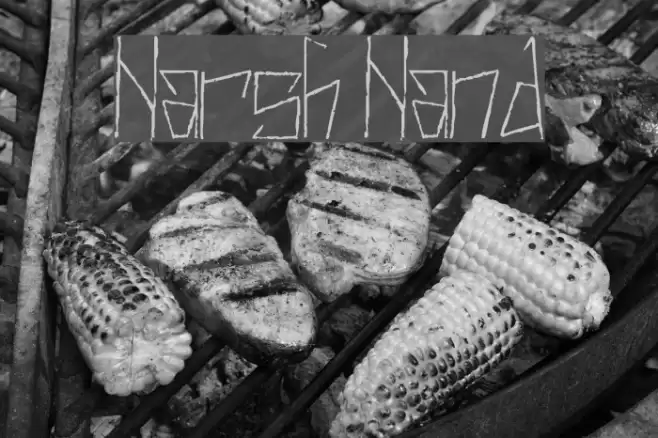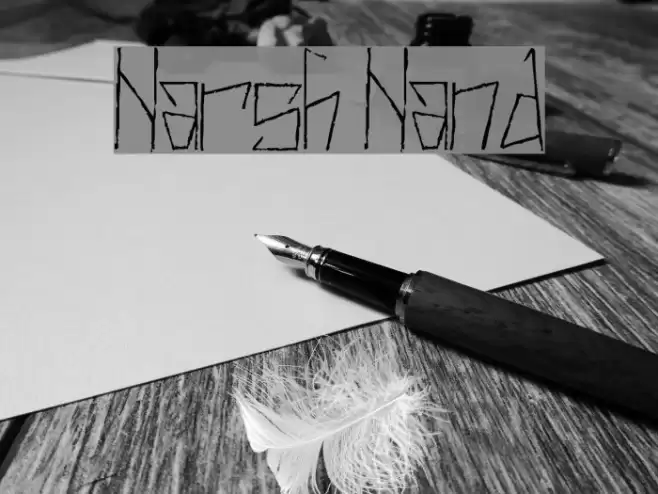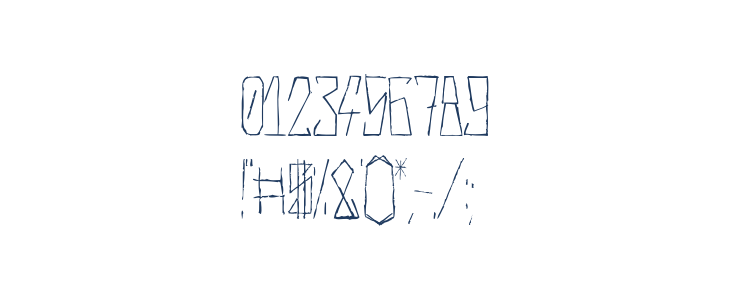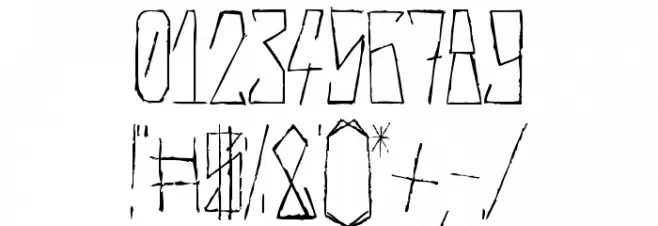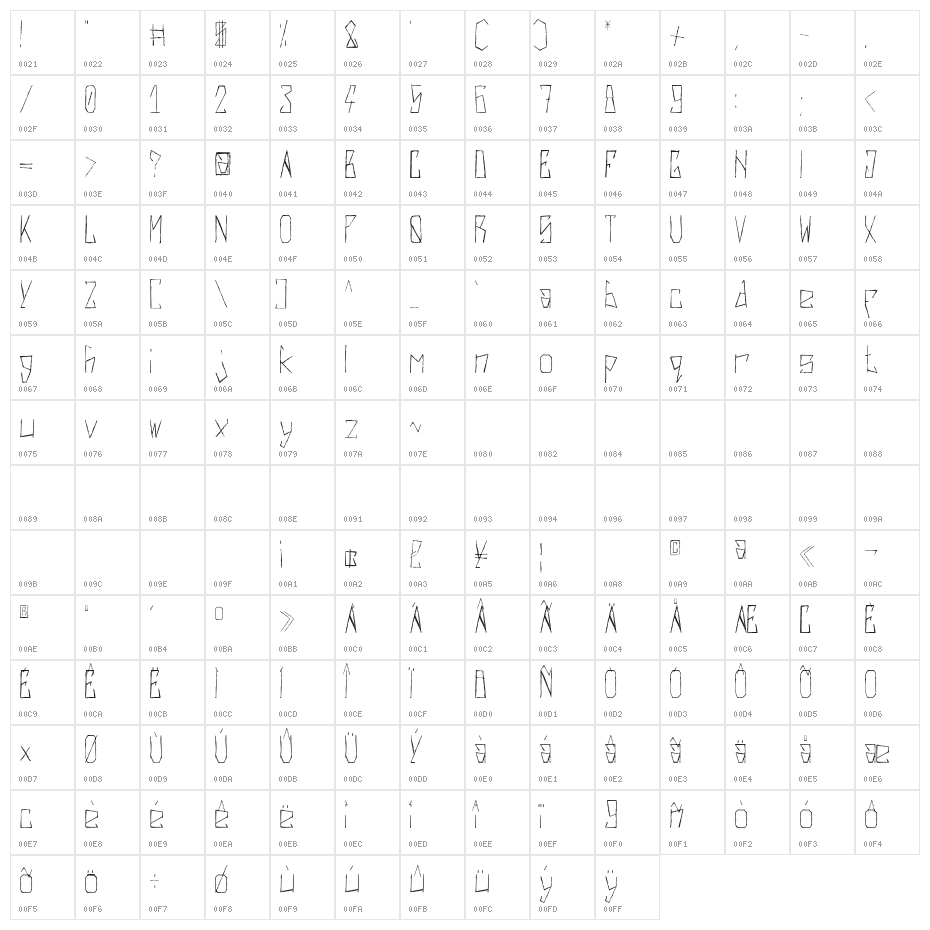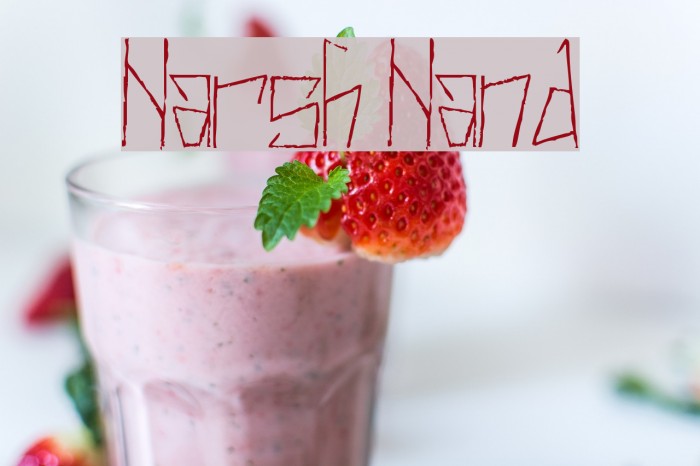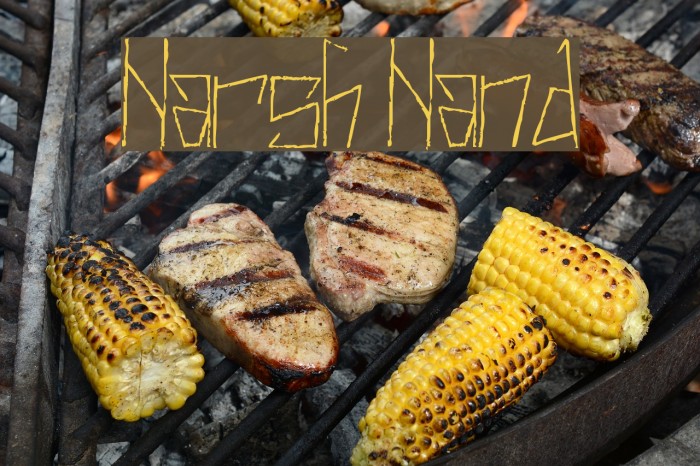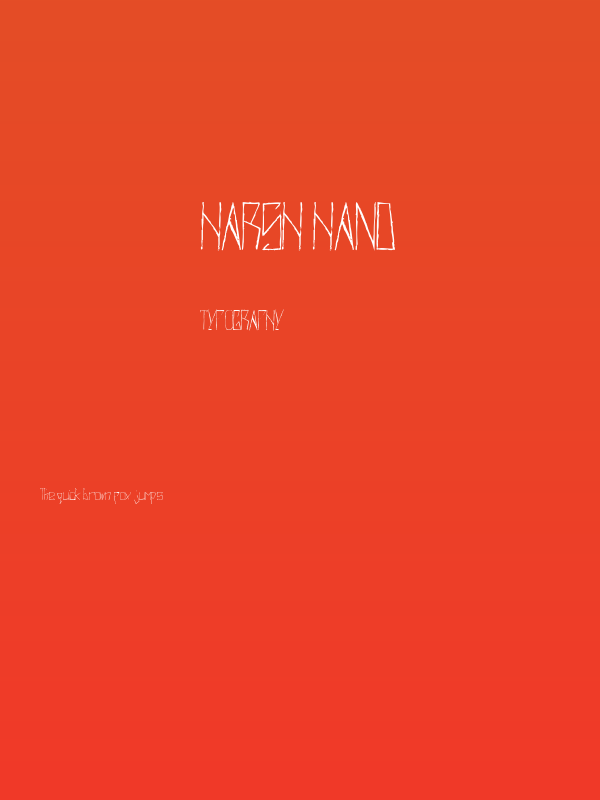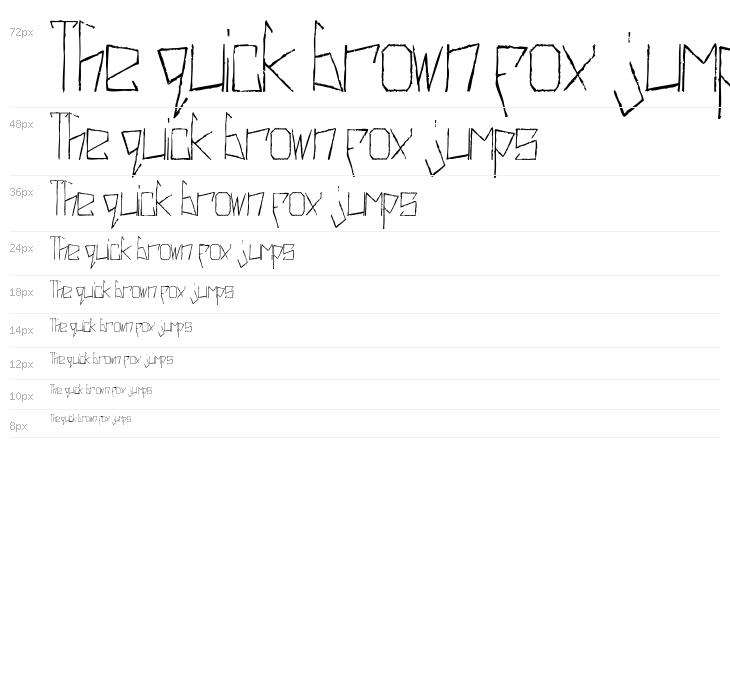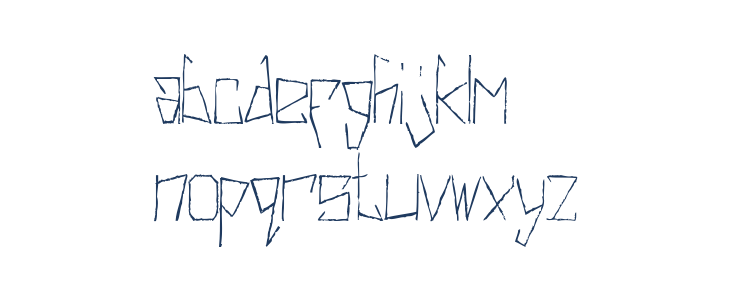
Harsh Hand Font
Harsh Hand Description
This font exhibits a raw, edgy style with a hand-drawn appearance. The characters are irregular and jagged, giving an impression of being sketched with a rough, uneven stroke. The uppercase and lowercase letters maintain a consistent height, while the numbers and special characters follow the same rugged aesthetic. The font's unique, distressed look makes it stand out, offering a sense of rebellion and non-conformity. Its artistic and unconventional nature is ideal for projects that require a bold statement or a touch of grunge.
A raw, edgy, hand-drawn font with a jagged, distressed style from Uncategorized fonts.
- Proposed Projects: Ideal for album covers, streetwear branding, graffiti art, and edgy poster designs.
- Use Case: Logos, Headlines, Artistic projects